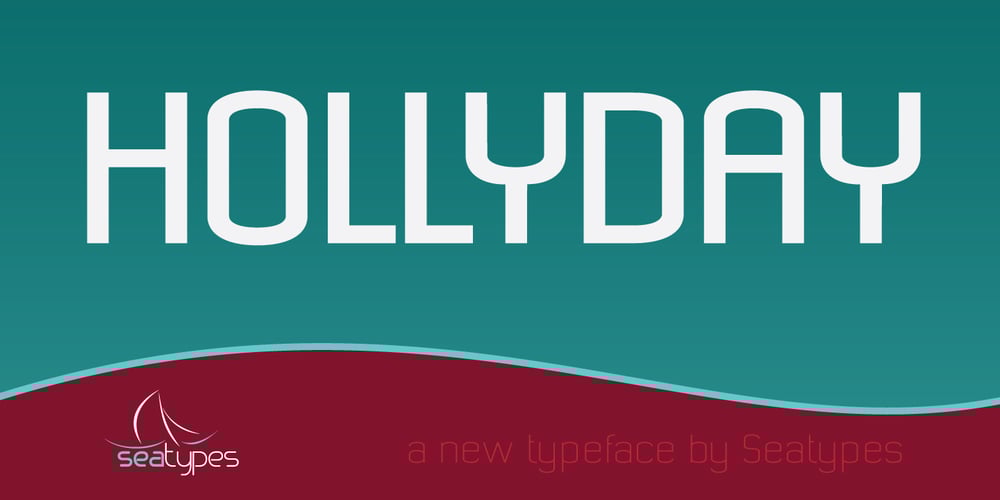
Hollyday
Hollyday font
Hollyday Font Family was designed by Marcio Duarte and published by Sea Types. Hollyday contains 3 styles and family package options. Hollyday is designed to be practical and use of texts and titles. Ideal for application in graphics and editorial projects and mobile interface design.